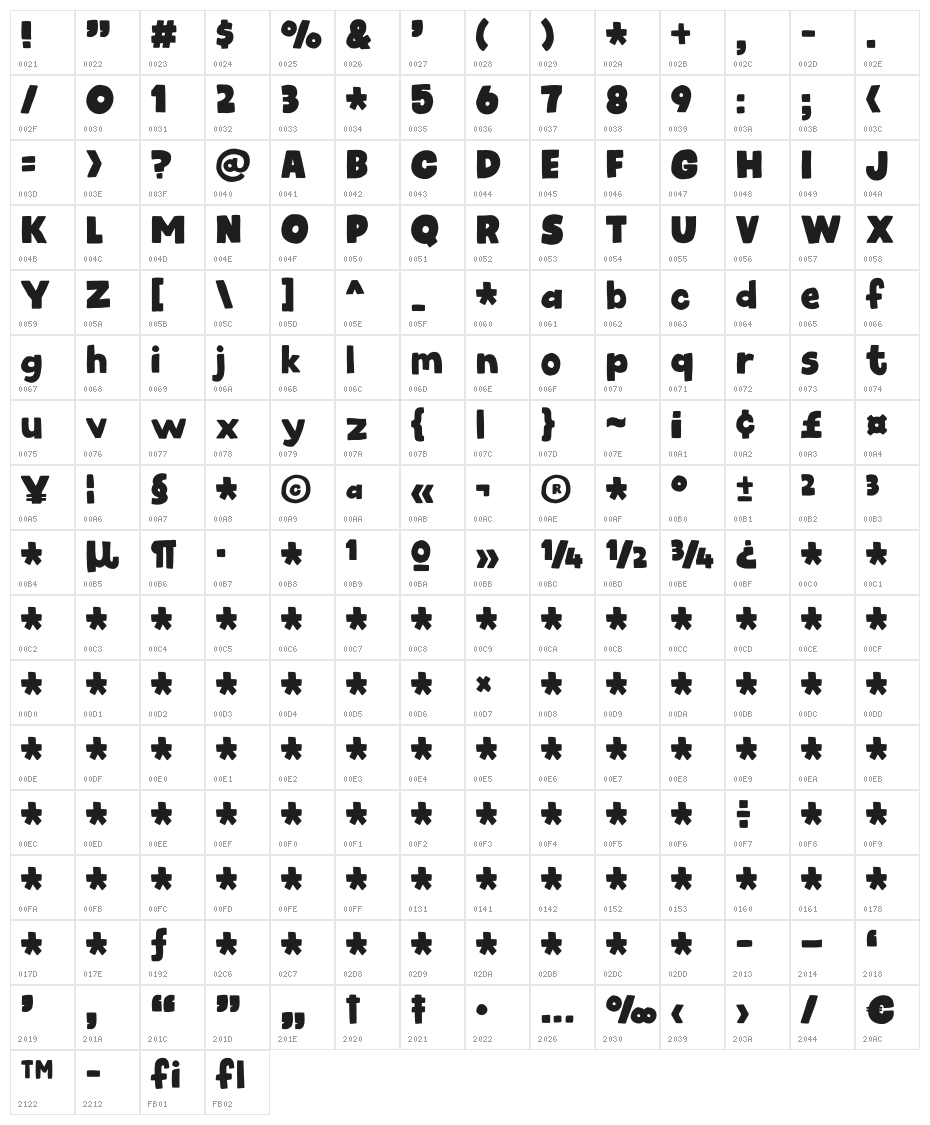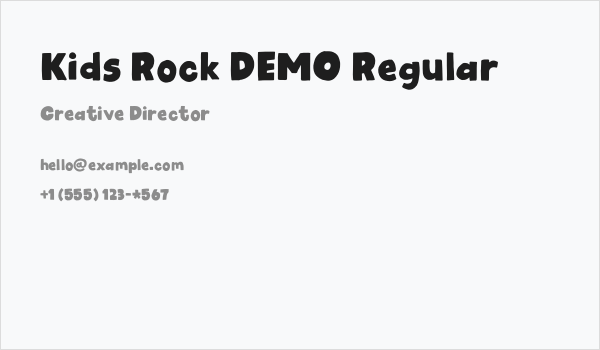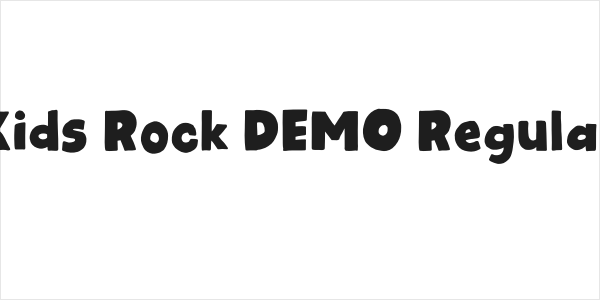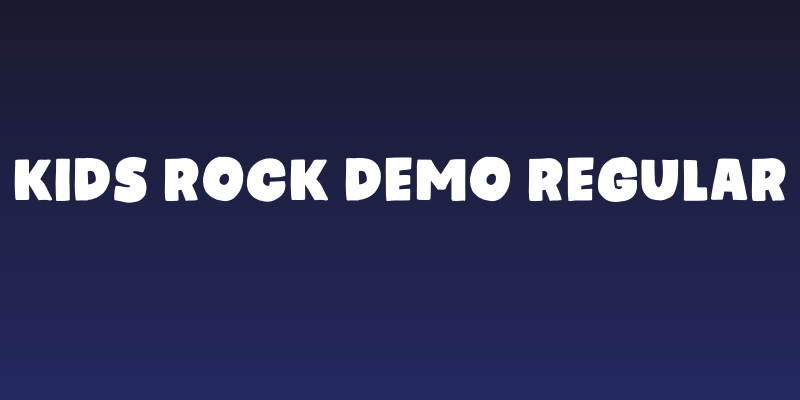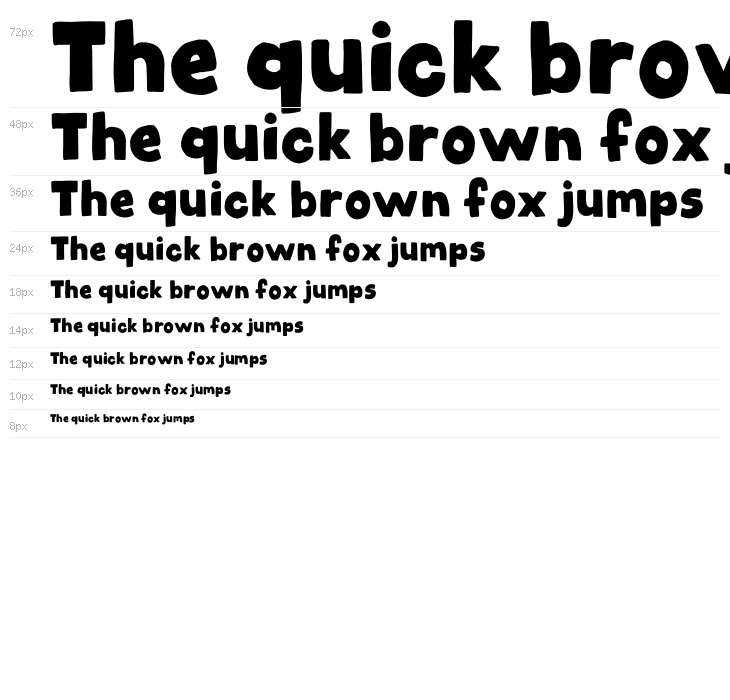
Kids Rock DEMO Regular Font
Kids Rock DEMO Regular Description
This playful and bold font features thick, rounded characters that exude a sense of fun and energy. The letters are slightly irregular, giving them a hand-drawn, whimsical appearance. The uppercase and lowercase letters maintain a consistent style, with a strong presence and a friendly vibe. The numbers and special characters are equally bold and maintain the playful aesthetic, making this font ideal for projects that require a lively and engaging look.
Overall StylePlayful, Whimsical
Proposed ProjectsPerfect for children's books, playful branding, party invitations, and educational materials.